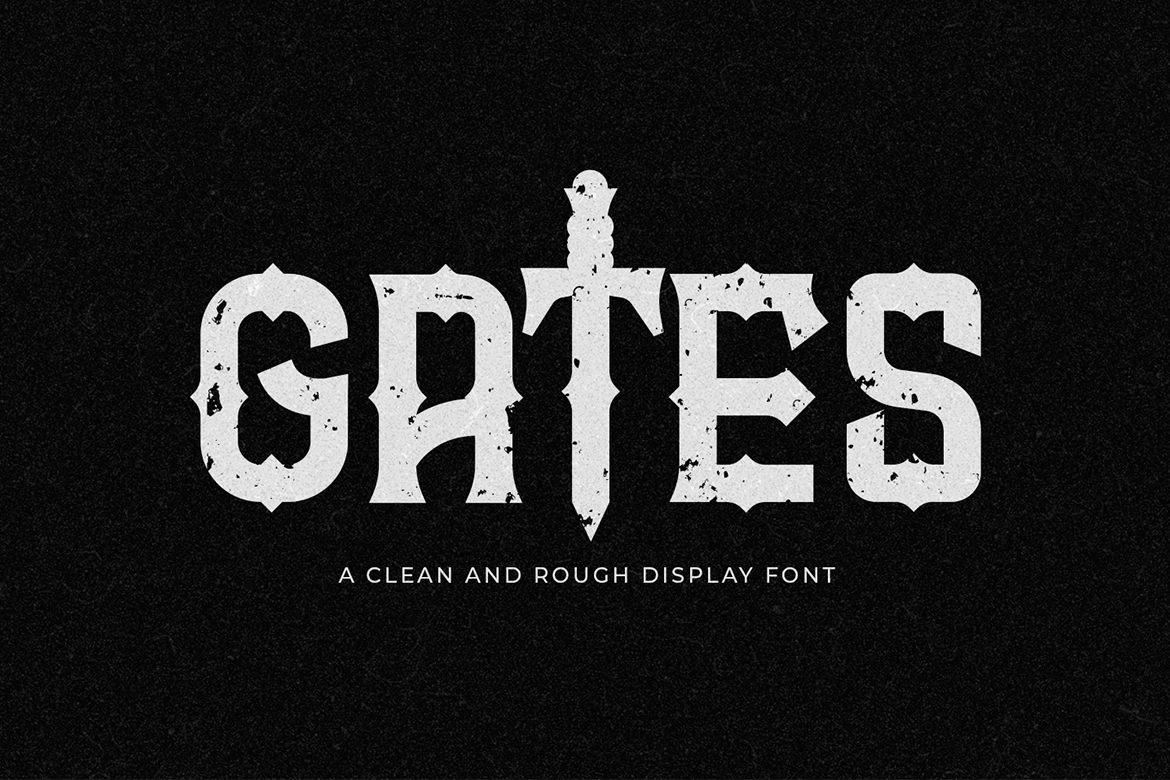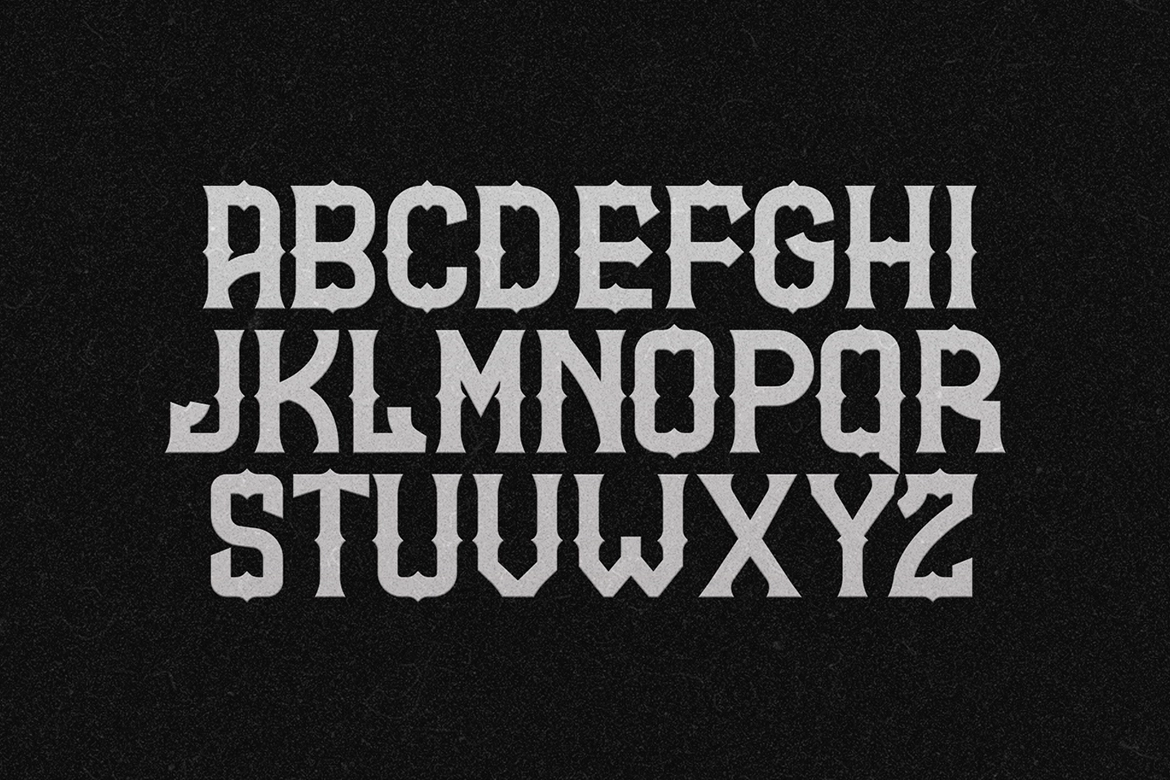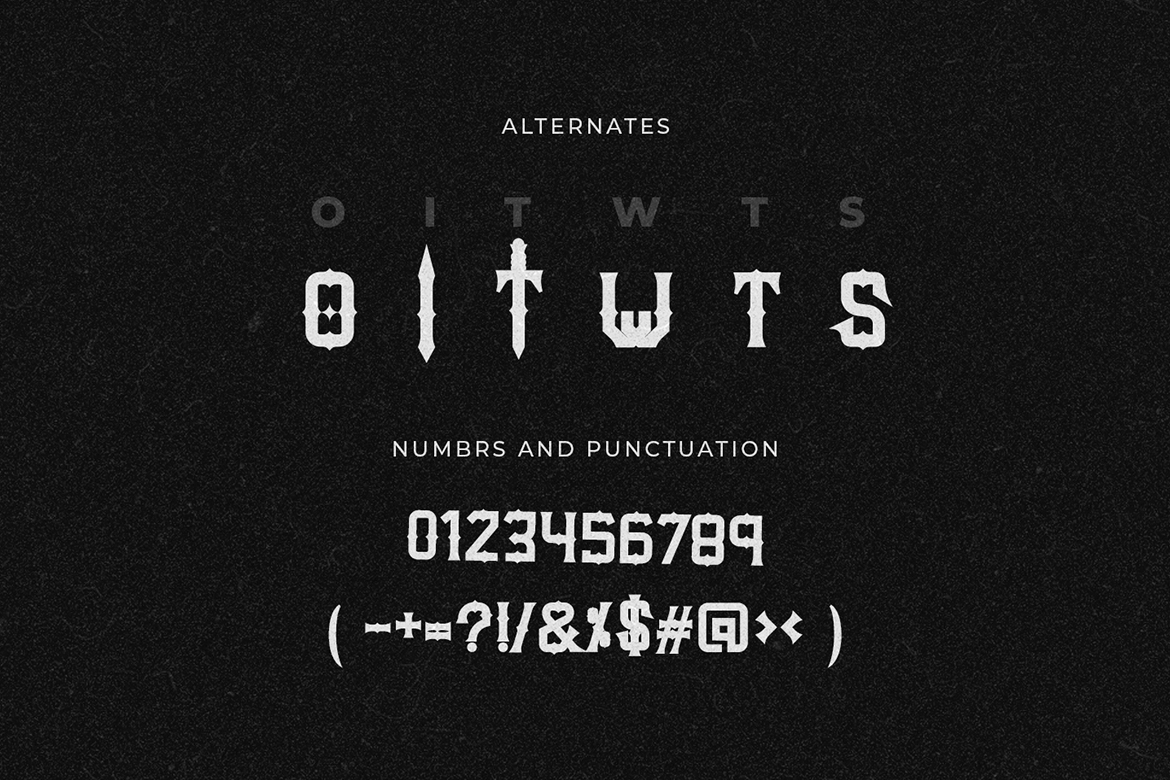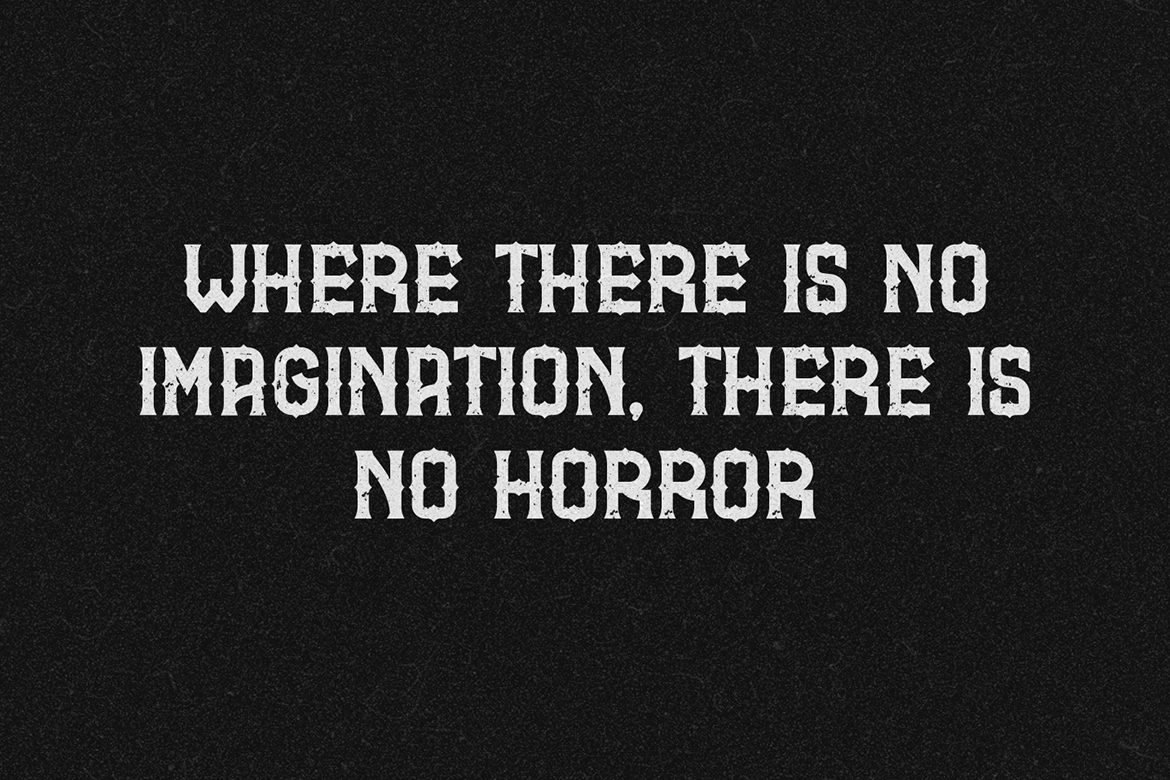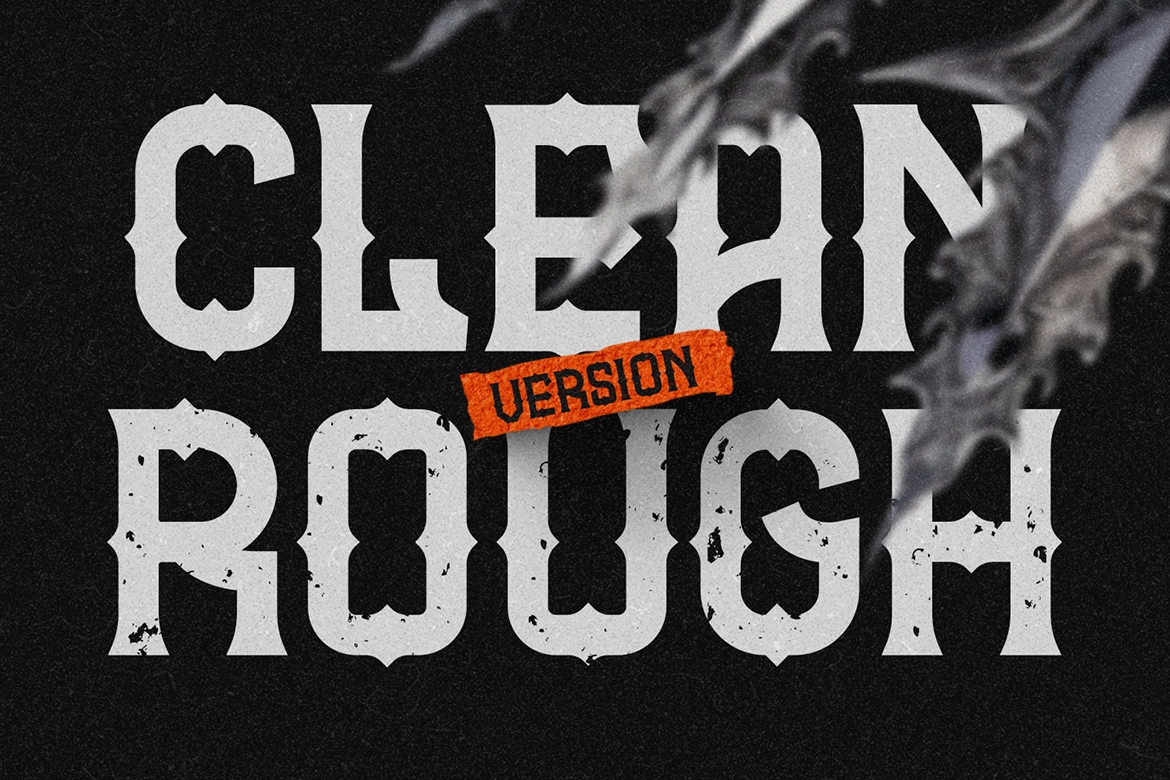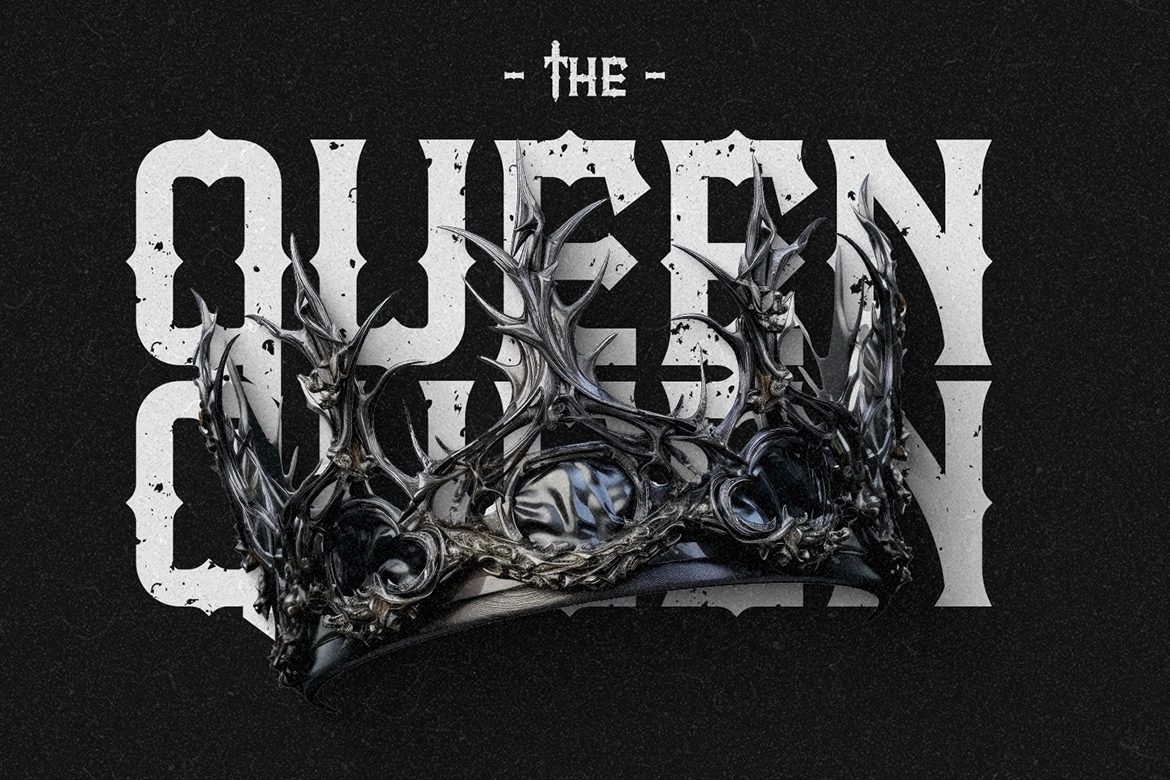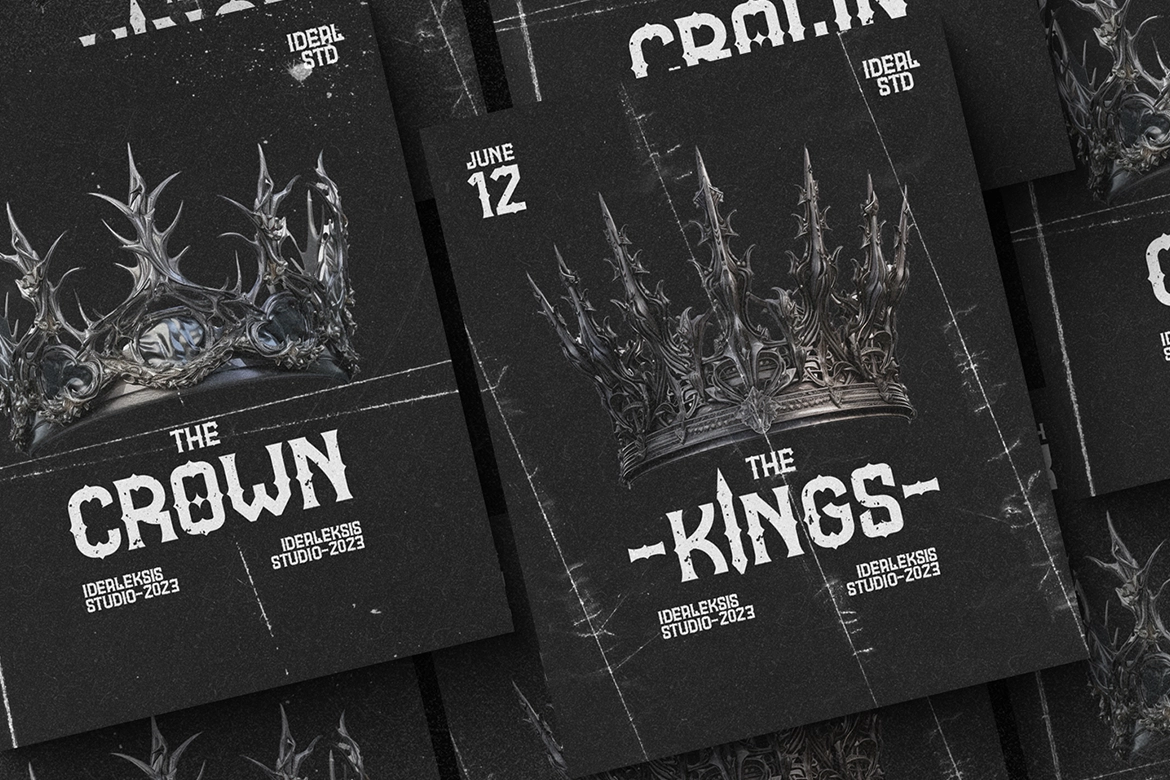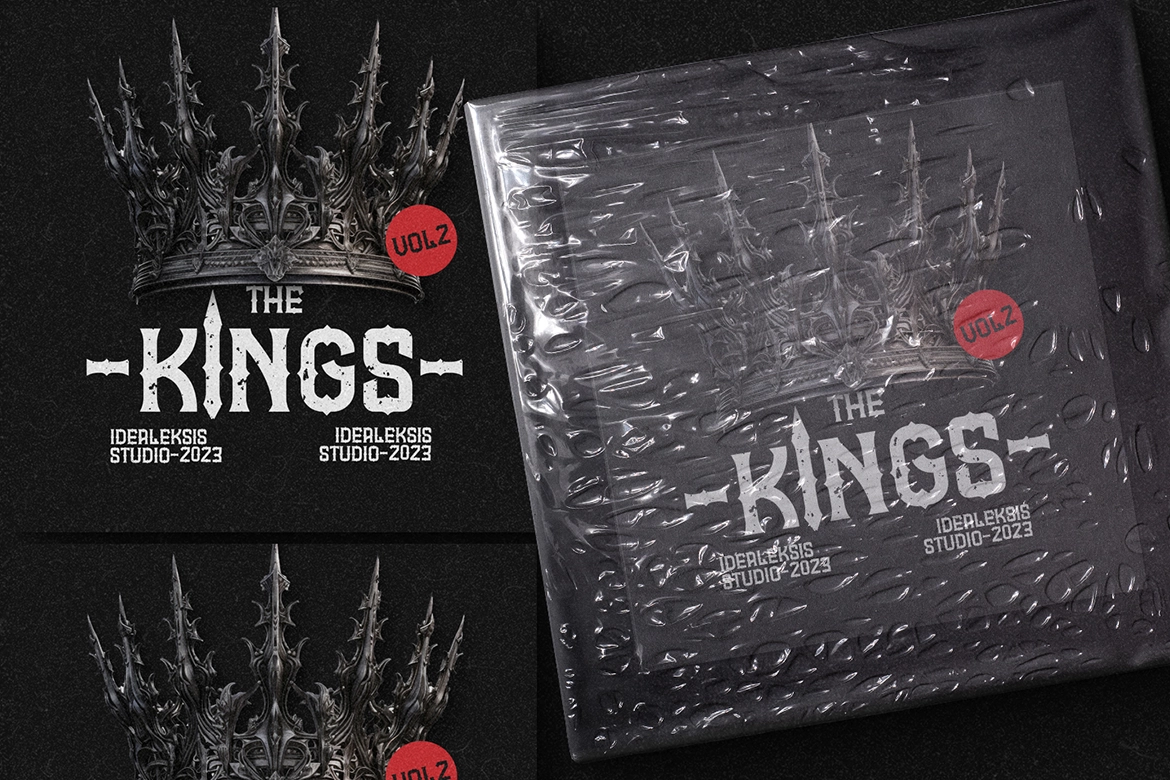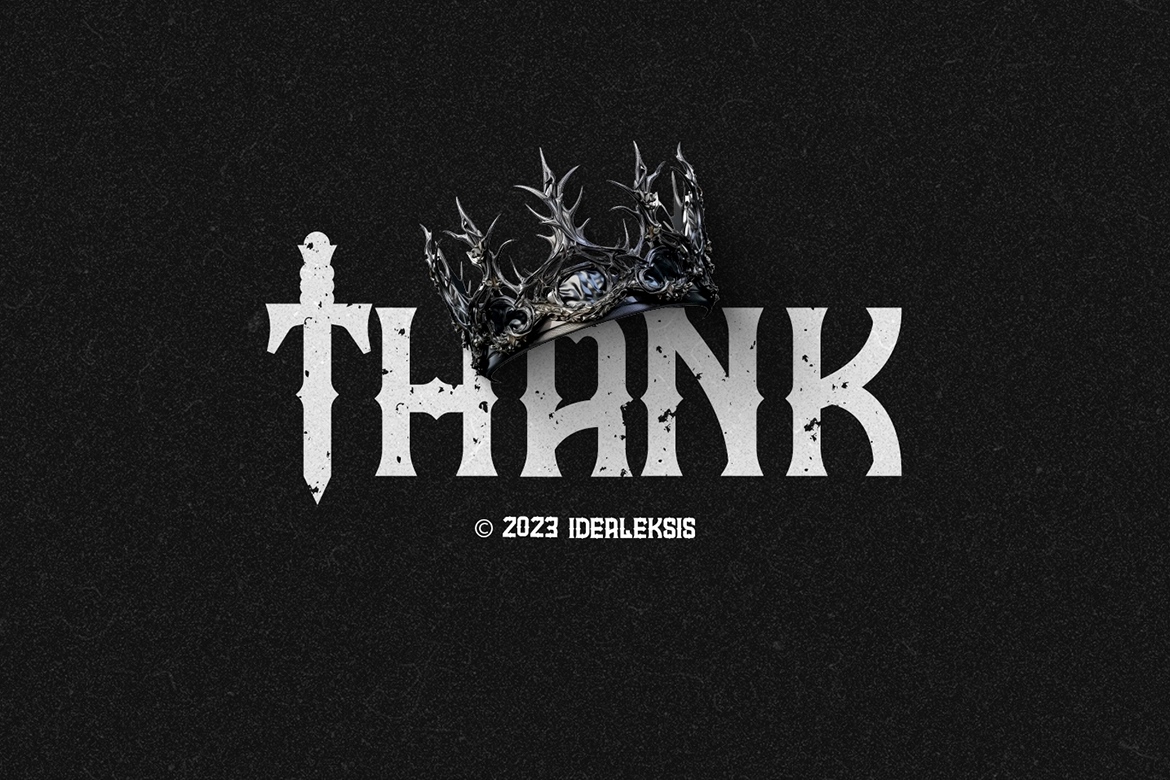
Gates – Gothic Medieval Display Font
Gates
Rough
Gates – Gothic Medieval Display Font is a bold gothic display typeface inspired by medieval lettering and vintage print aesthetics. Its sharp edges, strong structure, and distressed texture create a powerful and gritty look, making it ideal for designs that need a dark, dramatic, and commanding presence.
This font blends historical character with modern usability, giving your projects a unique identity. Perfect for posters, logos, game titles, tattoo designs, album covers, and branding with a medieval or gothic theme, it delivers high visual impact while maintaining clarity and readability.
- Clean and rough distressed style